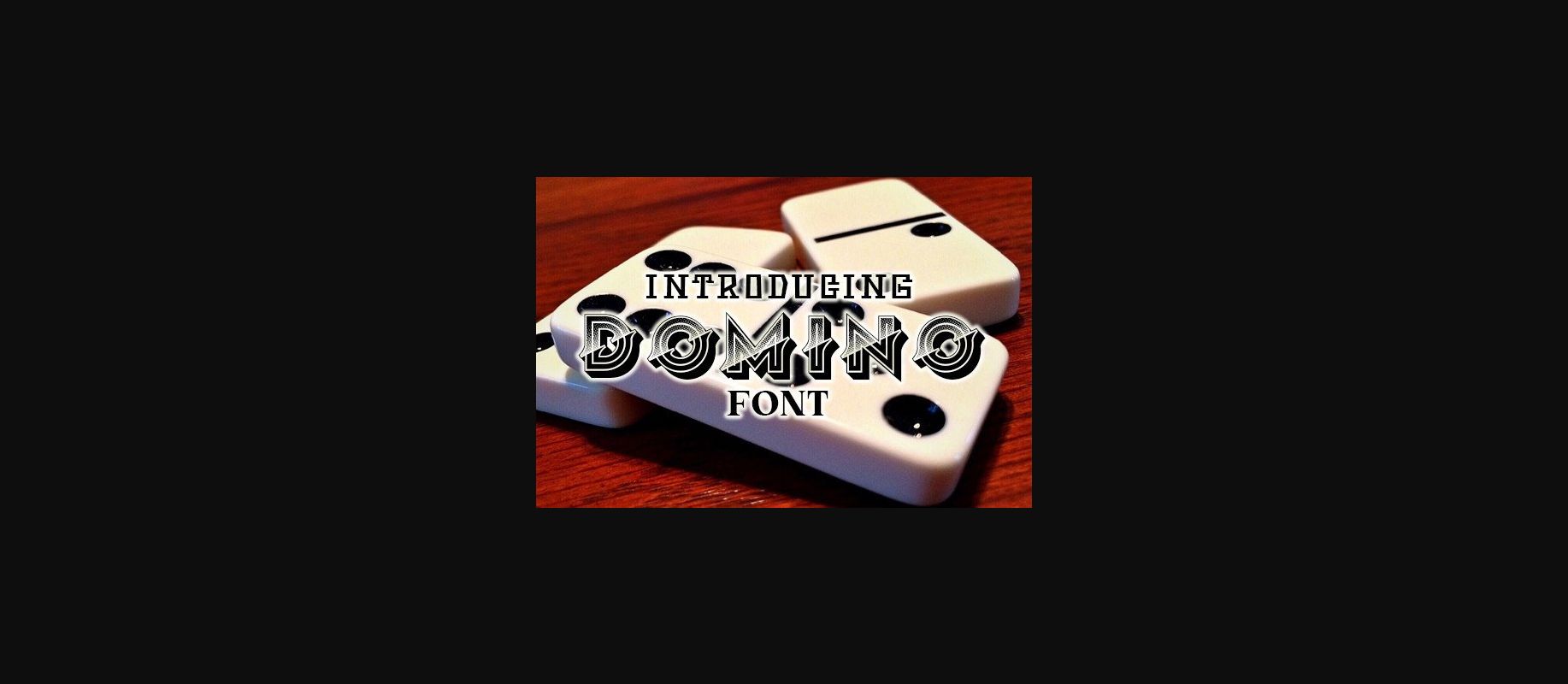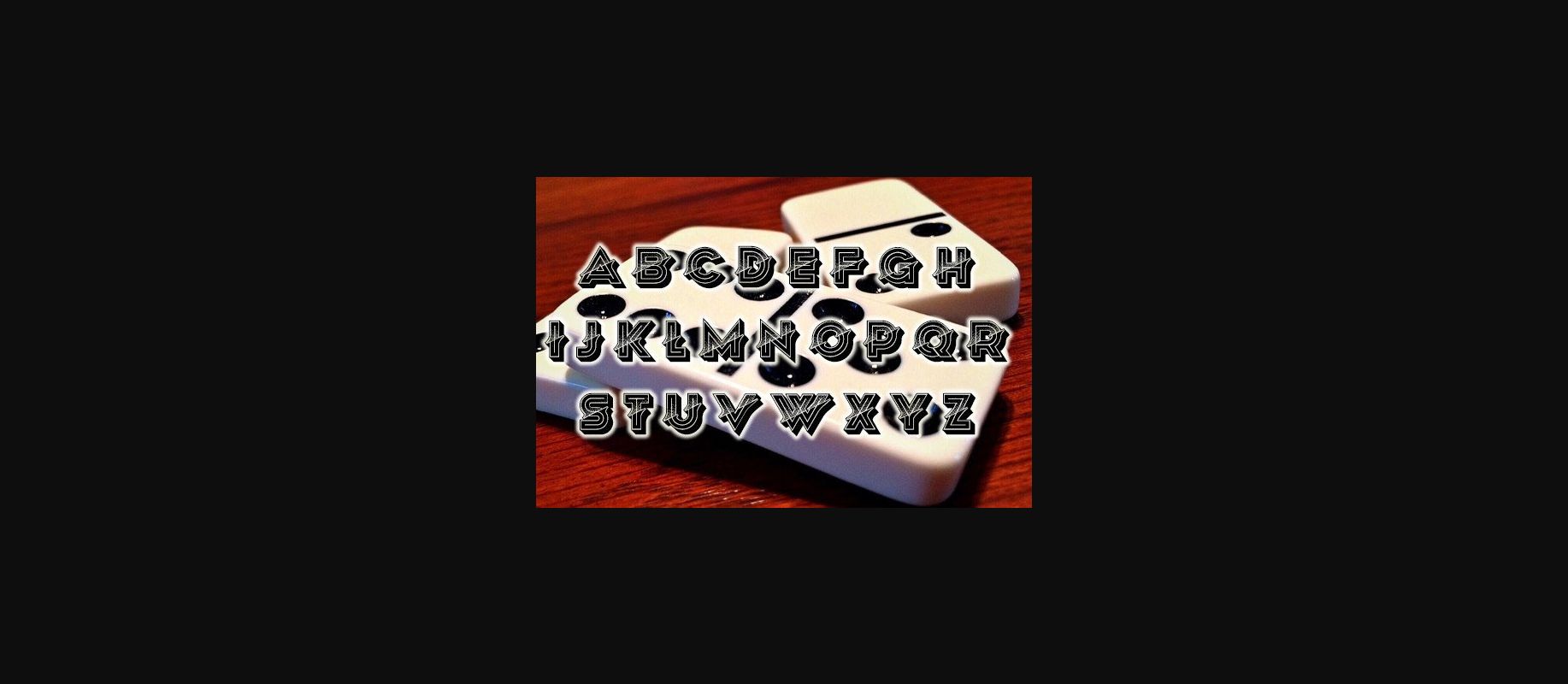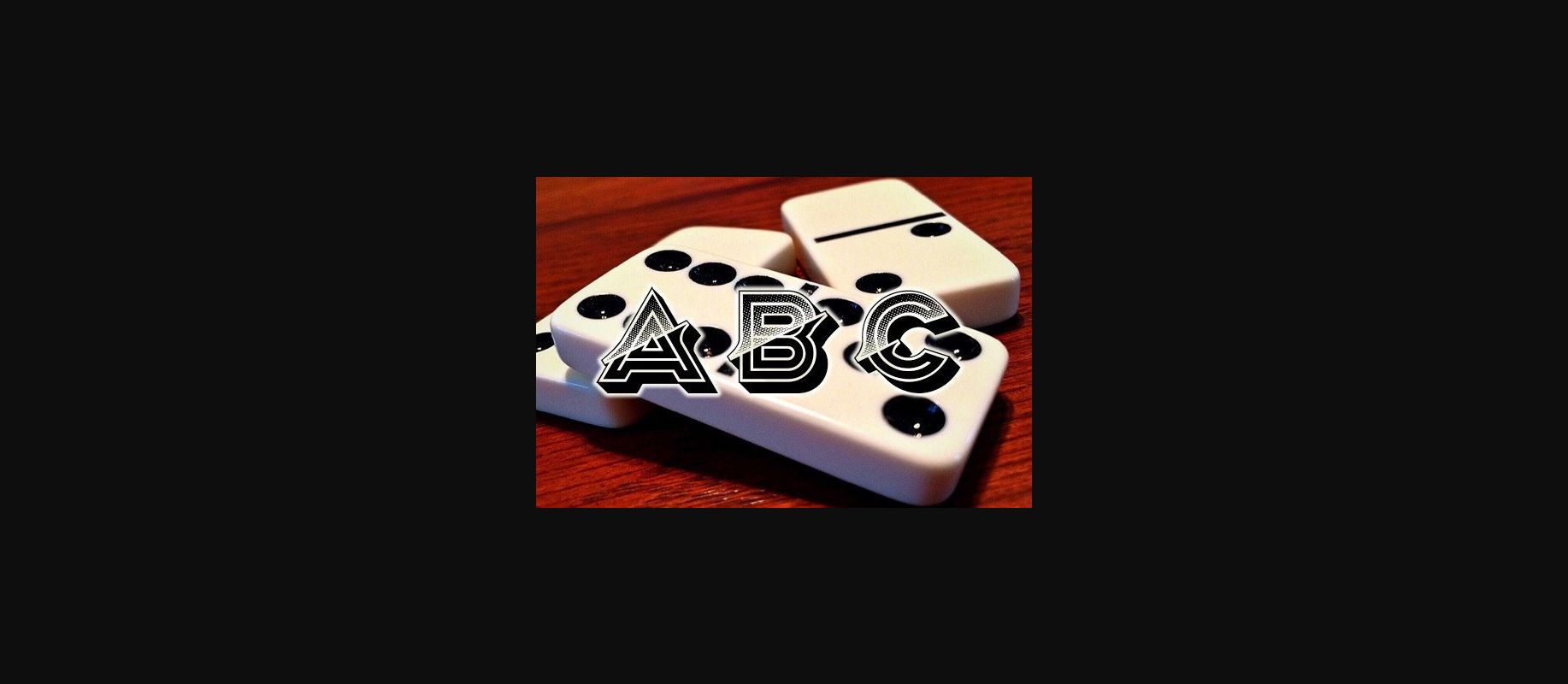
HomeDecorative FontsDomino Font Decorative Fonts Domino Font FacebookXPinterestWhatsApp 1 of 5 ... Domino Font Poster 2... Domino Font Poster 3... Domino Font Poster 4... Domino Font Poster 5... About Domino Font Domino is an awesome 3D decorative typeface that will look stunning on any of your designs. Use this font on posters, flyers, and shirts. DOWNLOAD NOW People also explored Alessandra Font Vis Nova Font Boba Baby Font Little Penguin Font Manjane Font Ranagram Font Cloud Calligraphy Font Hiraka Font Listan Type Font 254 0 TagsDominoDomino Font Previous articleSnow Penguin FontNext articleFlowers Bloom Font LEAVE A REPLY Cancel reply Comment: Please enter your comment! Name:* Please enter your name here Email:* You have entered an incorrect email address! Please enter your email address here Website: Save my name, email, and website in this browser for the next time I comment. Personal Use Free Authurium Personal Use Free Read more about this font Blast Personal Use Free Read more about this font Dealisya Personal Use Free Read more about this font Krase Personal Use Free Read more about this font BLOG Best Fonts for T-Shirt Design – Top 2025 Picks In 2025, t-shirt design has become more than just fashion—it's a form of self-expression. Whether you're... How to Install and Use Fonts on Windows, macOS, and Web Projects Using Fonts in Digital Marketing: Tips to Strengthen Your Brand Identity To increase your work productivity, choose the most readable fonts.